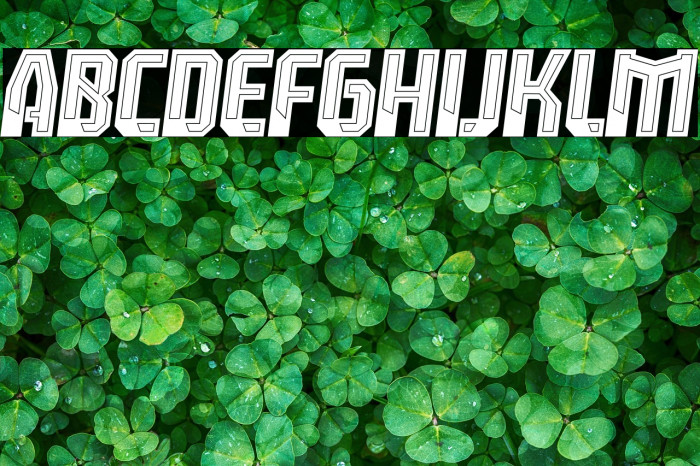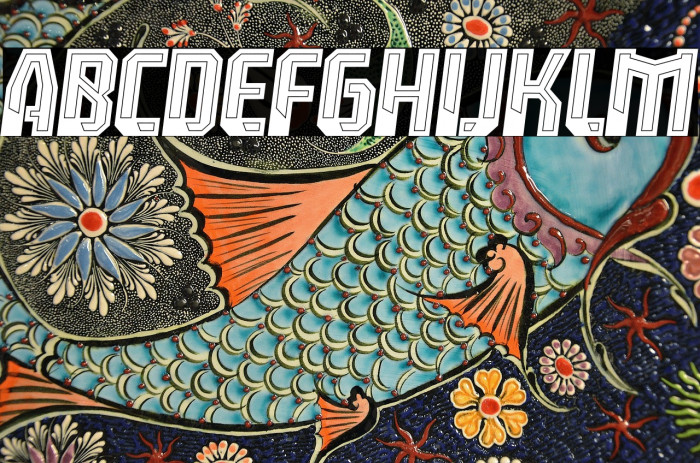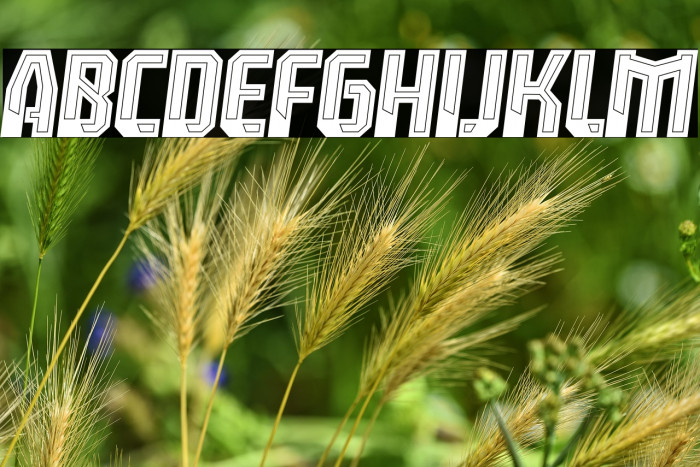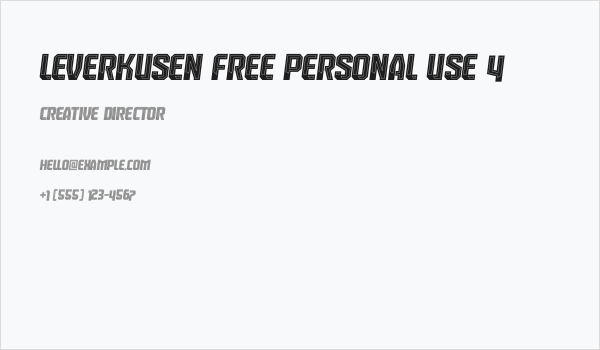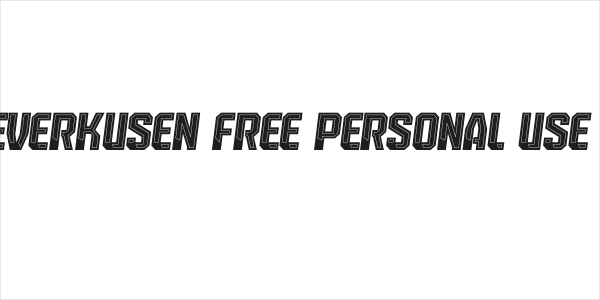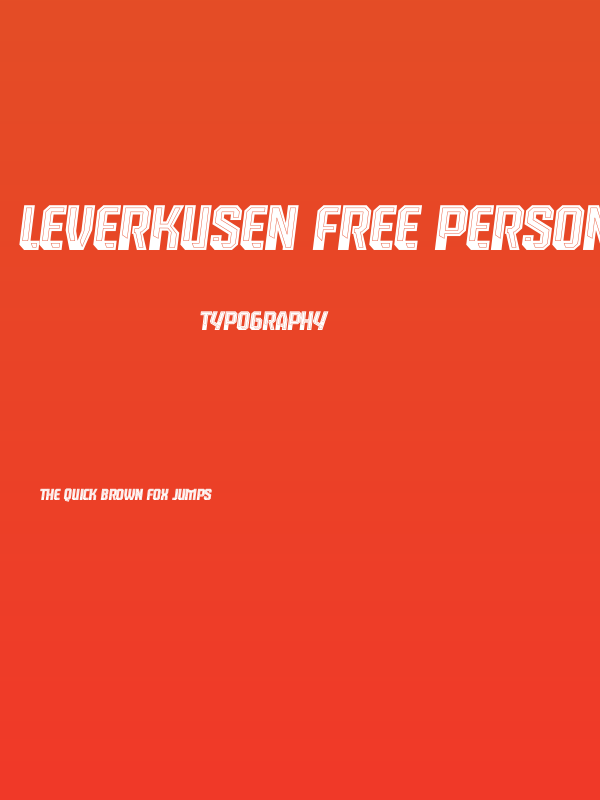
Leverkusen Free Personal Use 4 Font
Leverkusen Free Personal Use 4 Description
This font features a bold, geometric design with a three-dimensional effect that creates a sense of depth. The characters are constructed with sharp angles and clean lines, giving them a futuristic and dynamic appearance. The use of shadowing enhances the 3D illusion, making each letter stand out prominently. The font maintains a consistent thickness throughout, contributing to its bold and impactful look. It is well-suited for projects that require a modern and eye-catching typeface.
| Proposed Projects | Ideal for posters, video game graphics, futuristic branding, and attention-grabbing headlines. |